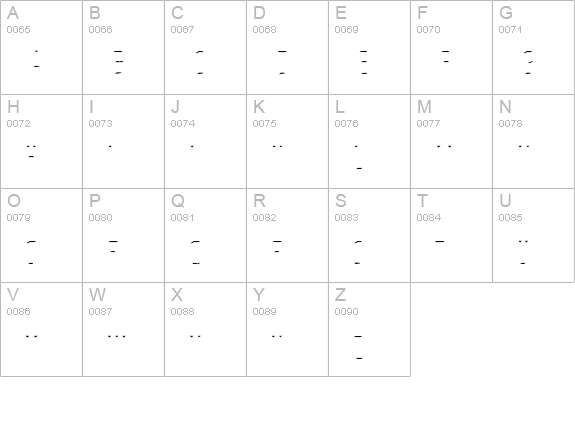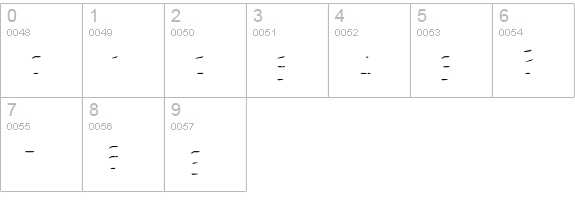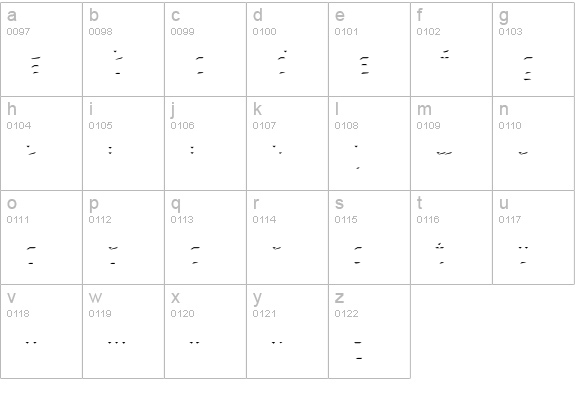
PrimaryStone-Top Font Details
PrimaryStone-Top is a versatile and modern font that combines elegance with a touch of sophistication. Its clean lines and sleek design make it perfect for a wide range of projects, from branding to editorial design. This font is ideal for creating eye-catching headlines, bold statements, or stylish logos. What sets PrimaryStone-Top apart is that it is not only visually appealing but also free to download. You can easily access this font at FontsMarket.com, where you can explore its full potential and use it in your creative endeavors without any cost. With its timeless appeal and professional quality, PrimaryStone-Top is a must-have addition to any designer's toolkit.